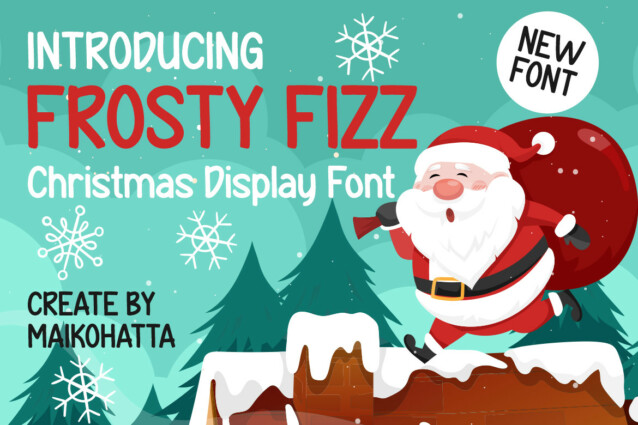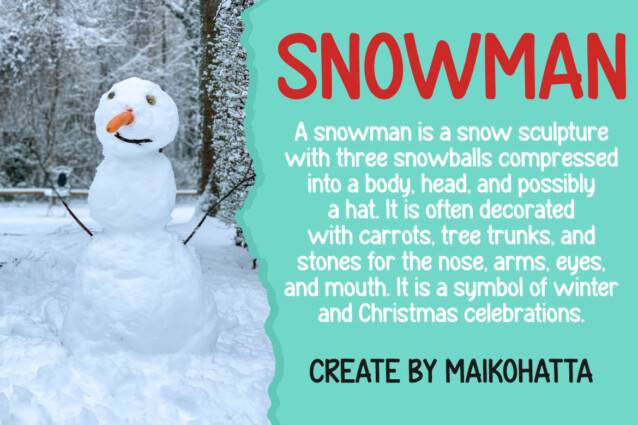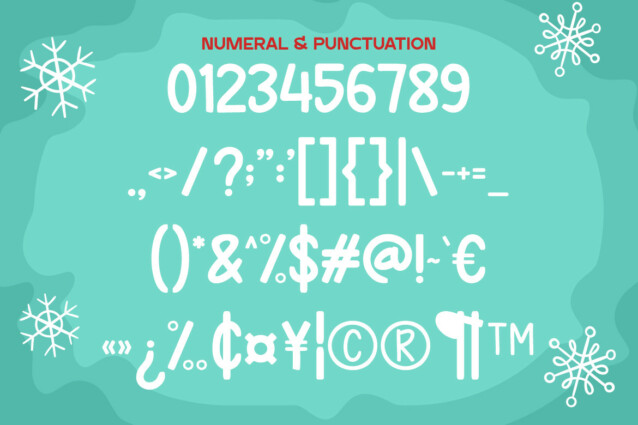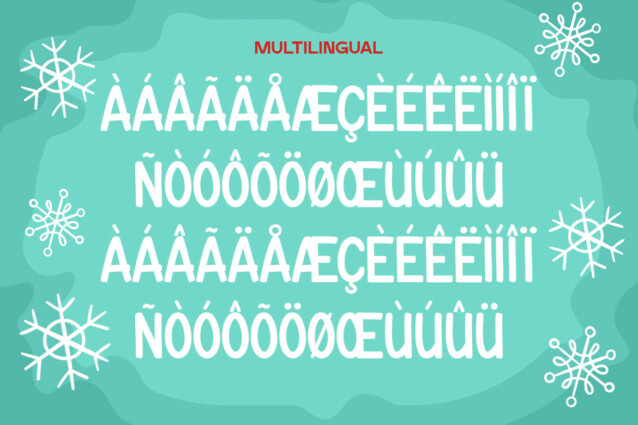
Frosty Fizz Font is specifically designed to create a Christmas atmosphere and mood. It is often used in graphic design, greeting cards, posters, and various other visual elements related to the celebration of Christmas.
* Uppercase
* Lowercase
* Multilingual